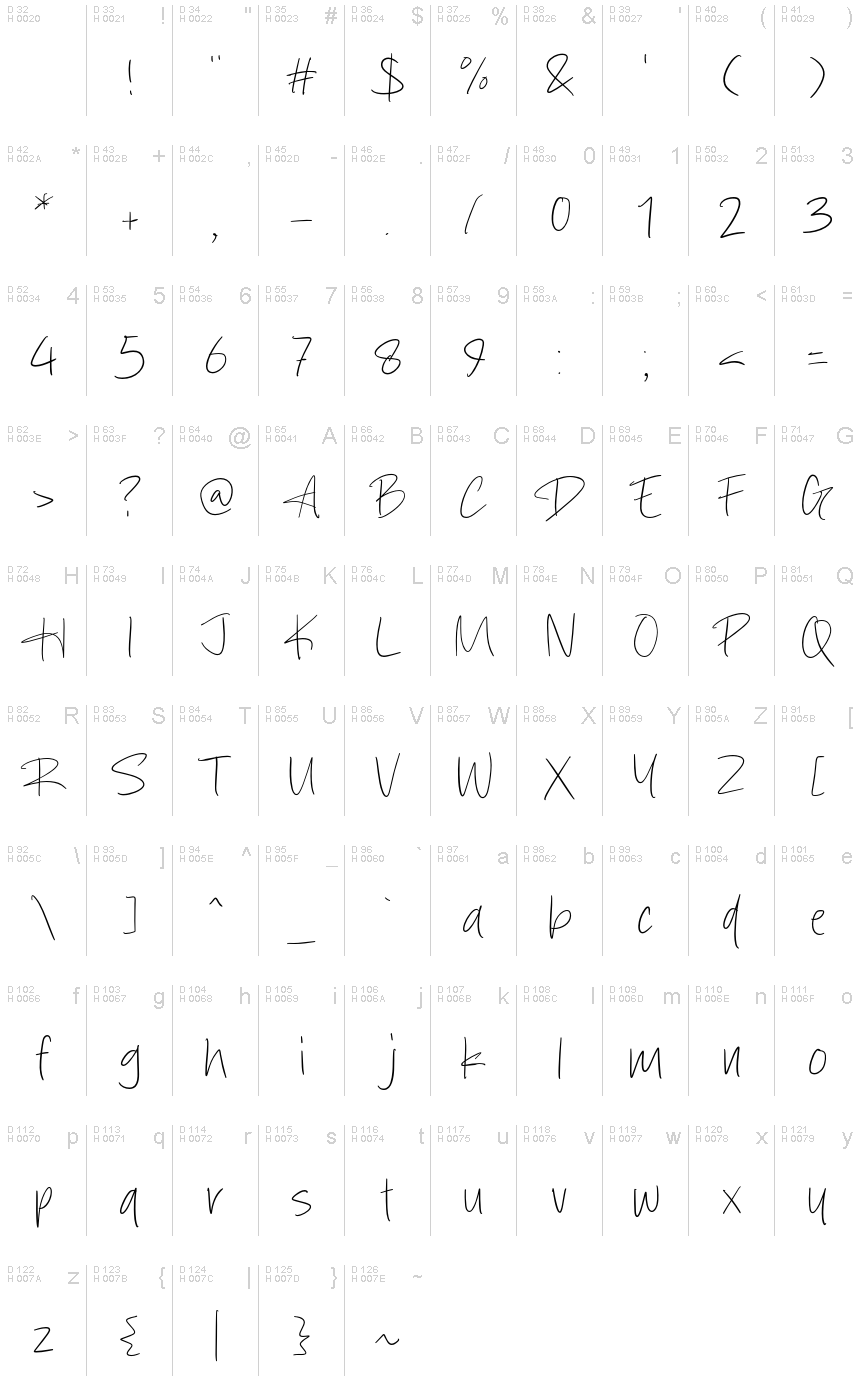
Austra Down
Austra Down font designed by MJType is a memorable signature typeface that abounds with grace-full handwrittenness. Its swift, quick lines, as well as its curvy and rounded shapes, give it an easy sense of beauty: inviting snugness and welfare.
It is possible to smoothly adopt this flexible typeface in different design applications starting from branding or packaging to editorial or digital interface and thus adding a refined touch of class.
Because of its adaptability, Austra Down stands out for anyone looking for originality, innovation and intimacy.